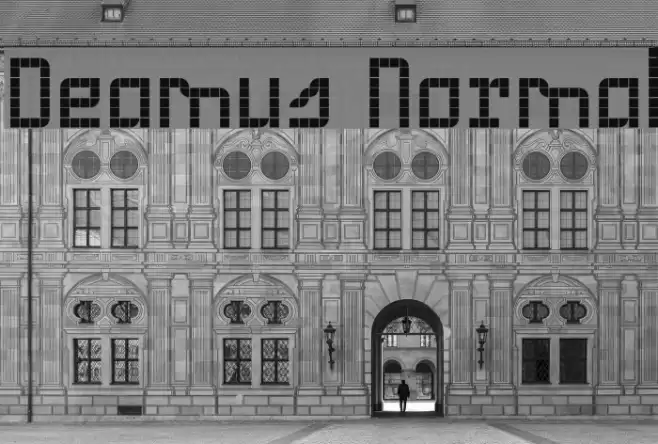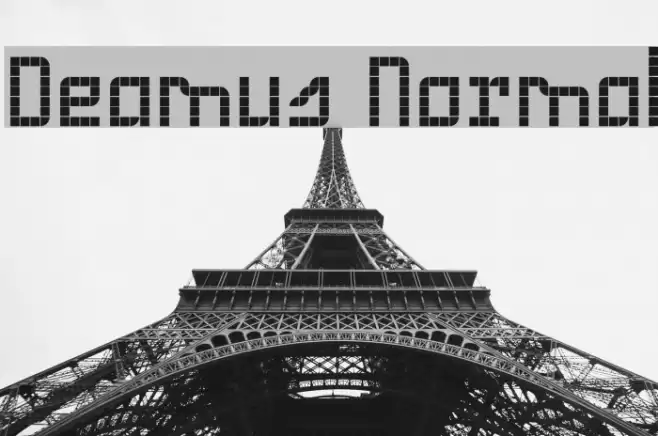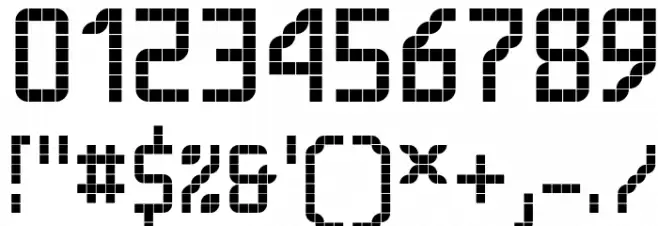
Deamus Normal Font
Deamus Normal Description
This font features a unique, pixelated design that mimics the appearance of digital displays or retro video game graphics. Each character is constructed from a grid of small squares, giving it a blocky and geometric look. The uppercase and lowercase letters maintain a consistent height, while the numbers and special characters follow the same pixelated style. This design choice creates a cohesive and visually striking appearance that is both modern and nostalgic. The font's structure is clean and legible, making it suitable for various digital and print applications where a tech-inspired aesthetic is desired.
A pixelated, geometric font reminiscent of digital displays and retro gaming from Uncategorized fonts.
- Proposed Projects: Ideal for video game graphics, tech-themed posters, digital art projects, and retro-inspired branding.
- Use Case: Headlines, Logos, Digital Art